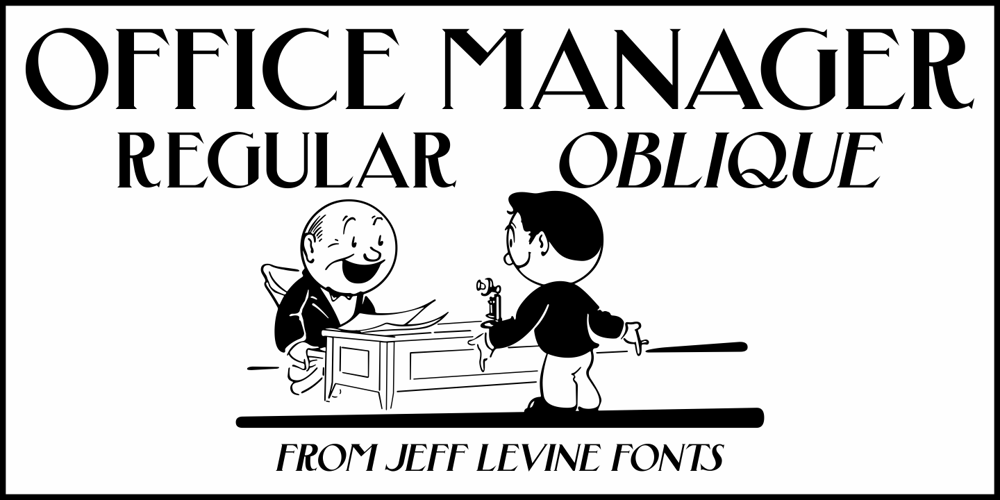
Office Manager JNL
Office Manager JNL font
Office Manager JNL Font Family was designed by Jeff Levine and published by Jeff Levine. Office Manager JNL contains 2 styles and family package options. “Stillson” is an Art Nouveau-influenced font found within the pages of the 1881 Barnhart Bros. & Spindler type specimen book.The digital revival is called Office Manager JNL, and is available in both regular and oblique versions.